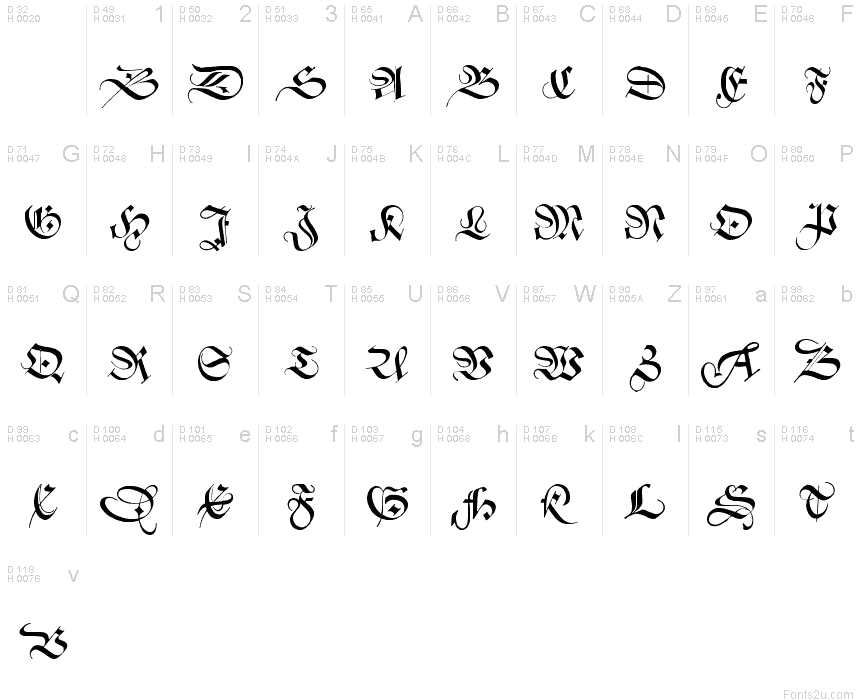
ZentenarZier, designed by Dieter Steffmann of Typographer Mediengestaltung, is a free ornamental calligraphy font with dramatic pen flourishes. Broad, dark curves meet hairline strokes, giving the letters a lively contrast and a distinctly hand-drawn silhouette. Long loops and sweeping tails are central to the design.
Romantic and theatrical subjects suit its elaborate forms, especially on invitations, book covers, and event posters. The lettering can become part of the decoration itself, echoing ribbons, vines, or engraved scrollwork rather than serving as neutral text. Its formal curves also fit historical fiction and period-themed celebrations, where the calligraphic style supports a convincing old-world setting.